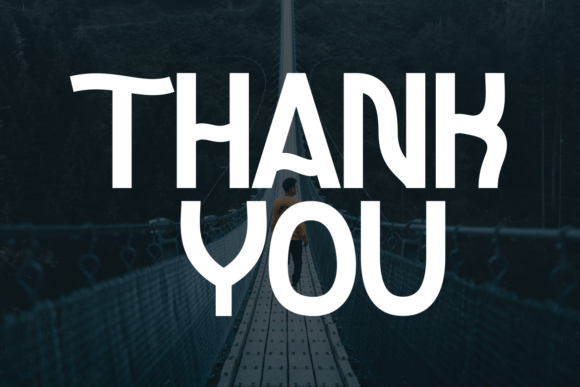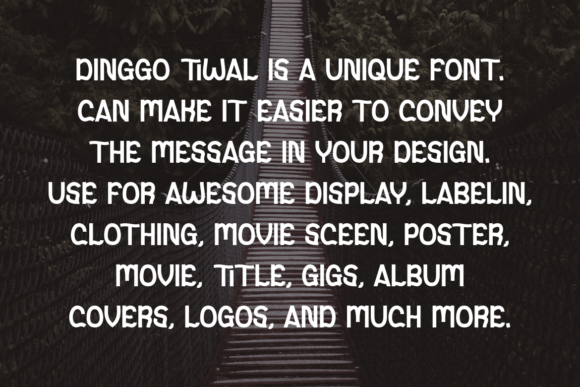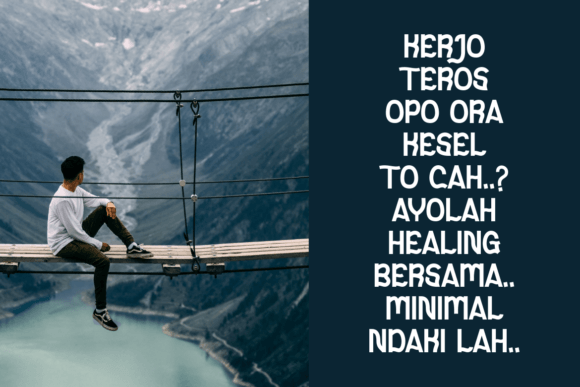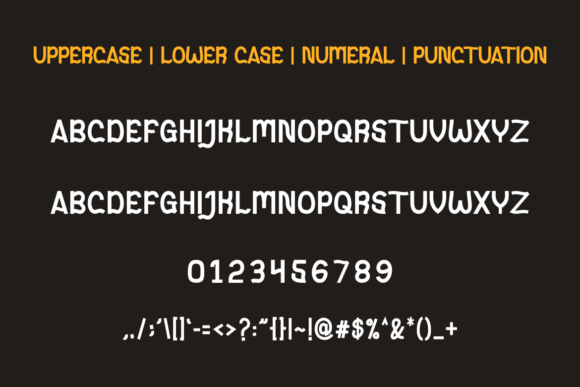
Dinggo Tiwal Font: Add a Joyful Touch to Your Designs
Are you tired of using the same old fonts in your designs? Do you want to add a playful and quirky touch to your creative projects? Look no further than the Dinggo Tiwal Font! This cute and charming display font is sure to bring a smile to your face and make your designs stand out from the crowd.
What is Dinggo Tiwal Font?
Dinggo Tiwal Font is a unique and eye-catching display font that is perfect for adding a touch of whimsy to your designs. With its playful and quirky style, this font is sure to capture the attention of your audience and leave a lasting impression. Whether you’re working on a graphic design project, crafting a logo, or creating social media graphics, Dinggo Tiwal Font is the perfect choice.
Characteristics of Dinggo Tiwal Font
So, what makes Dinggo Tiwal Font so special? Here are just a few of its key characteristics:
• Cute and Quirky: Dinggo Tiwal Font has a playful and charming style that is sure to add a touch of joy to your designs.
• Display Font: This font is specifically designed for display purposes, making it perfect for headlines, titles, and other prominent text elements.
• Unique Style: Dinggo Tiwal Font has a one-of-a-kind style that will set your designs apart from the crowd.
How to Use Dinggo Tiwal Font
Using Dinggo Tiwal Font in your designs is easy! Here are a few tips to get you started:
• Pair it with Other Fonts: Dinggo Tiwal Font pairs perfectly with other fonts, making it easy to create visually appealing combinations.
• Use it for Headlines: This font is perfect for headlines and titles, where its playful style can really shine.
• Add it to Your Brand: Consider adding Dinggo Tiwal Font to your brand’s font collection to give your designs a unique and playful touch.
Benefits of Using Dinggo Tiwal Font
So, why should you choose Dinggo Tiwal Font for your designs? Here are just a few benefits:
• Stand Out: Dinggo Tiwal Font will help your designs stand out from the crowd and grab the attention of your audience.
• Emotional Connection: The playful and charming style of this font is sure to create an emotional connection with your audience.
• Versatility: Dinggo Tiwal Font can be used in a variety of design contexts, from graphic design to crafting and more.
Who is Dinggo Tiwal Font for?
Dinggo Tiwal Font is perfect for:
• Graphic Designers: If you’re a graphic designer looking for a unique and playful font to add to your collection, Dinggo Tiwal Font is a great choice.
• Crafters: If you’re a crafter who loves to create handmade cards, gift tags, and other paper crafts, Dinggo Tiwal Font is a great addition to your toolkit.
• Small Business Owners: If you’re a small business owner looking for a way to add a playful touch to your branding, Dinggo Tiwal Font is a great option.
In conclusion, Dinggo Tiwal Font is a unique and charming display font that is sure to add a joyful touch to your designs. With its playful and quirky style, this font is perfect for designers, crafters, and small business owners who want to create visually appealing and engaging designs. So why wait? Download Dinggo Tiwal Font today and start adding a touch of whimsy to your creative projects!